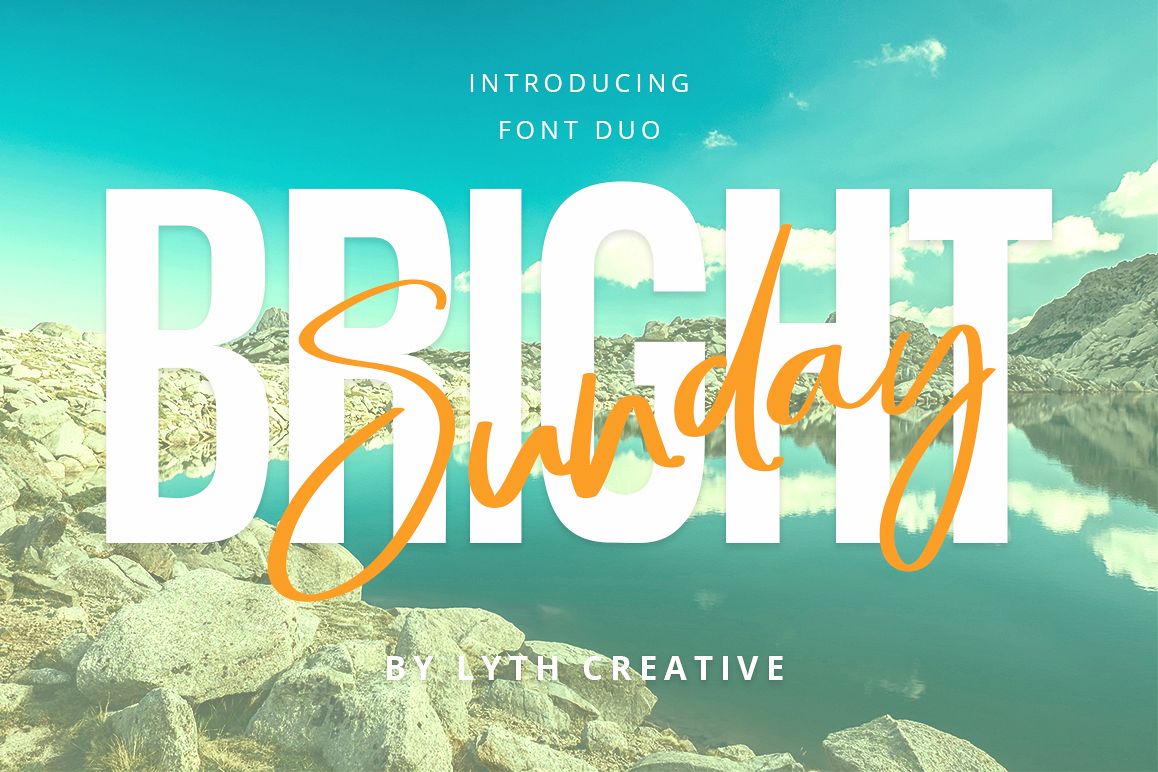
Bright Sunday
Introducing bright sunday Fonts Duo, contemporary pair of handwritten and sans serif fonts.
It will make you unique touch on any creative project like logos & branding, web designs, social media posts, advertisements & product designs, etc.